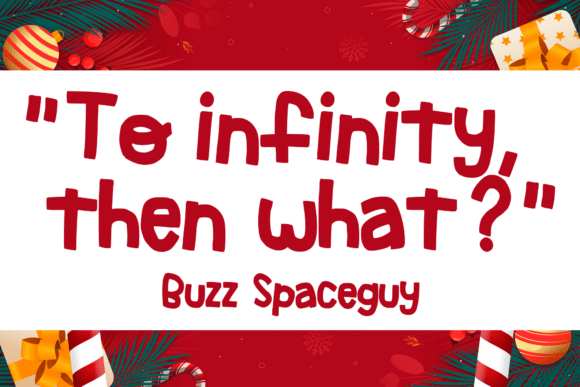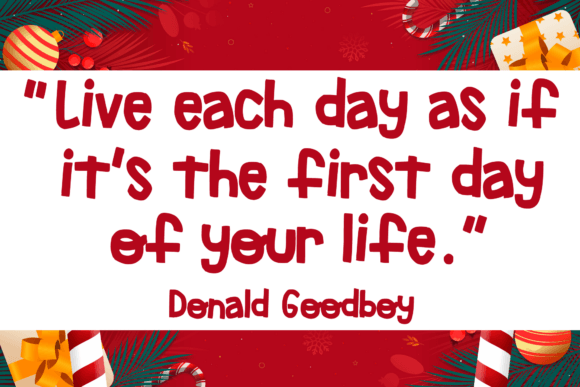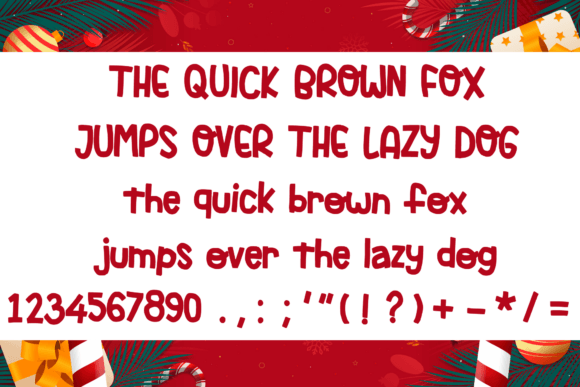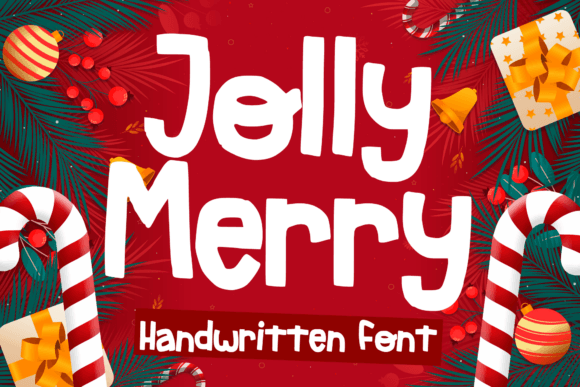
Introduction to Jolly Merry Font
Jolly Merry is your festive and playful handwritten font.
it’s versatile and fun to use font for any themed designs like Christmas, Easter, suitable for your school project and more It will elevate a wide range of design projects to the highest level.
Key Features of Jolly Merry Font
Why Choose Jolly Merry Font?
Jolly Merry Font offers exceptional quality and versatility, making it a valuable addition to your design toolkit. Whether you’re creating for personal projects or commercial use, Jolly Merry Font delivers professional results.